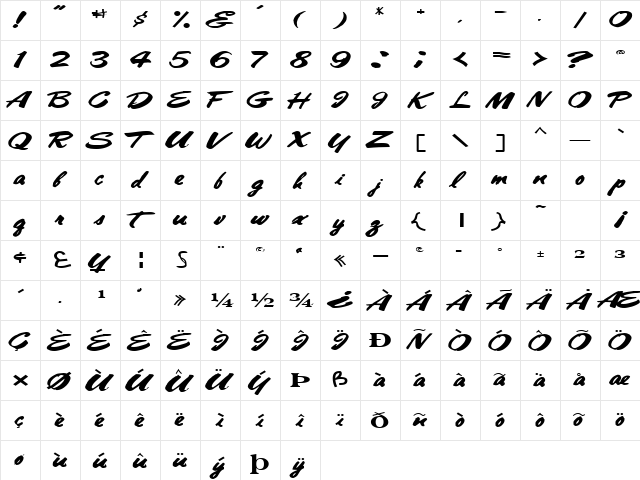
BestShotText56 Regular
Design Context for BestShotText56 Typeface
BestShotText56 is a composed and adaptable typeface that performs quietly and consistently across a wide range of design contexts.
Pro Tip: Use BestShotText56 in both headline and body roles to test its range before committing to a single application.